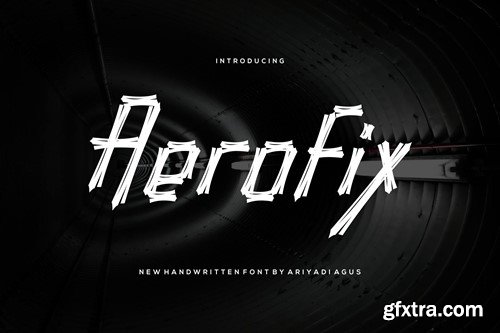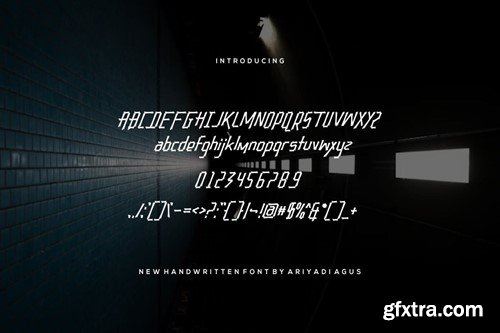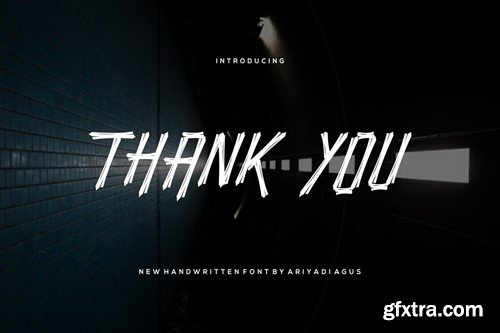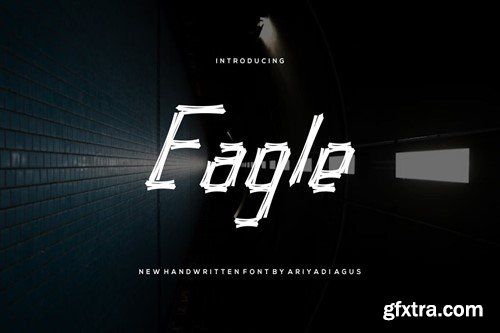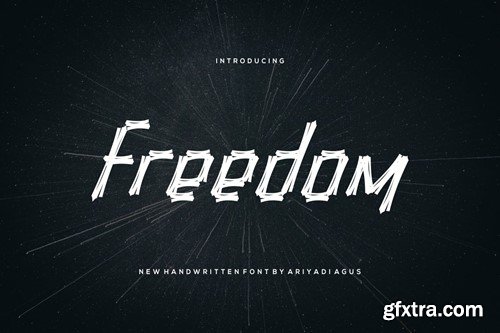
Aerofix Font 2GLQMKL
Aerofix Font
Introducing our new product Aerofix Font - Modern Fonts Herxius Font - Modern Font is a bold and authentic display font. This font is suitable for any branding projects such as logos, esport and more. extraordinary in many contexts. available *otf *ttf